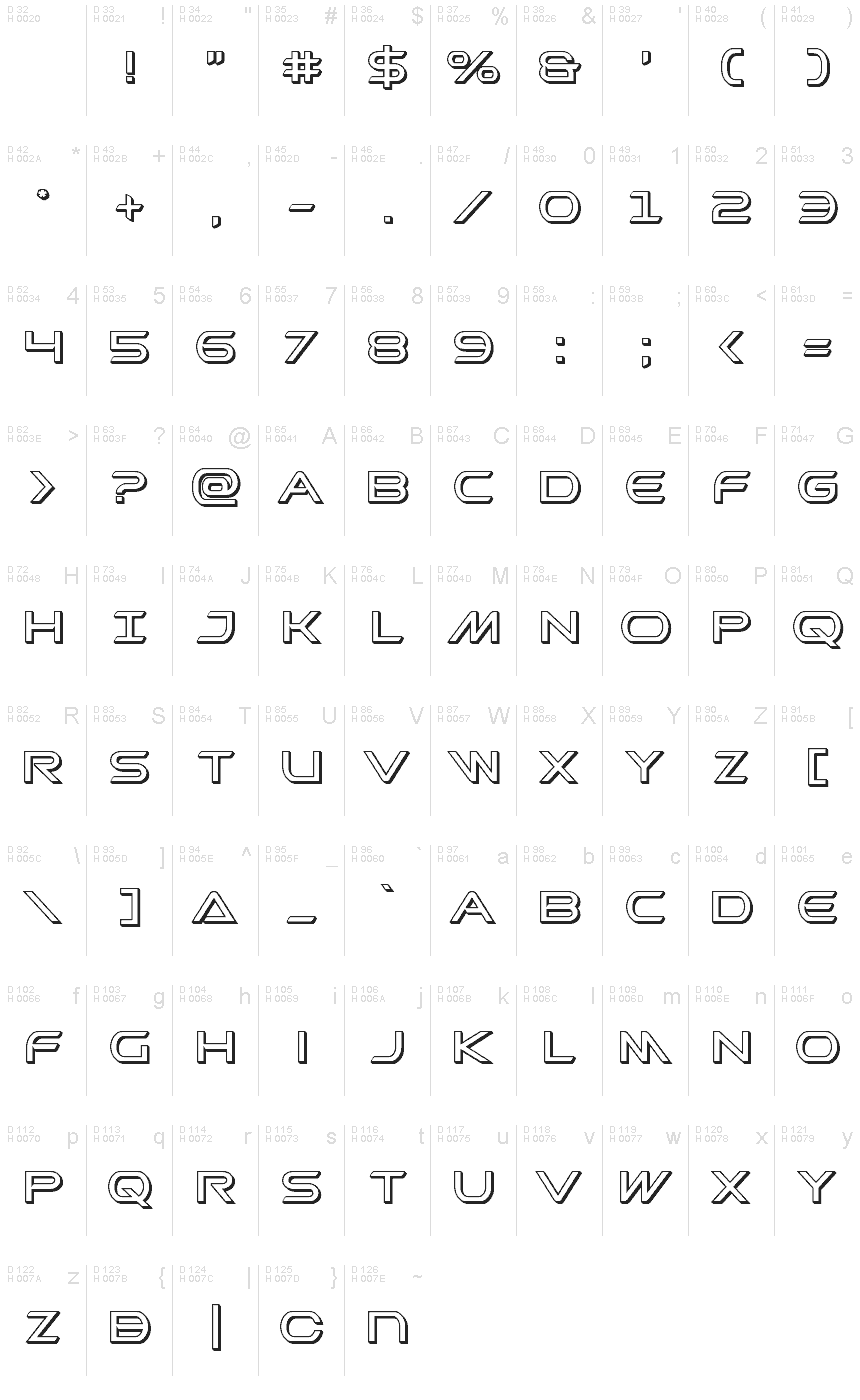
Promethean 3D is a captivating font that exudes a futuristic, dimensional allure. Designed by Daniel Zadorozny, this expansive display font commands attention with its bold, three-dimensional aesthetic. The intricate interplay of light and shadow across its extruded letterforms lends an almost sculptural quality, evoking a sense of depth and dynamism.
This distinctive font could find its niche in a range of modern, high-impact design applications, from signage and branding to digital interfaces and product packaging. Its striking visual presence makes it a versatile choice for creating eye-catching headlines, emphasizing key messages, or adding a touch of techno-chic flair to any design project.